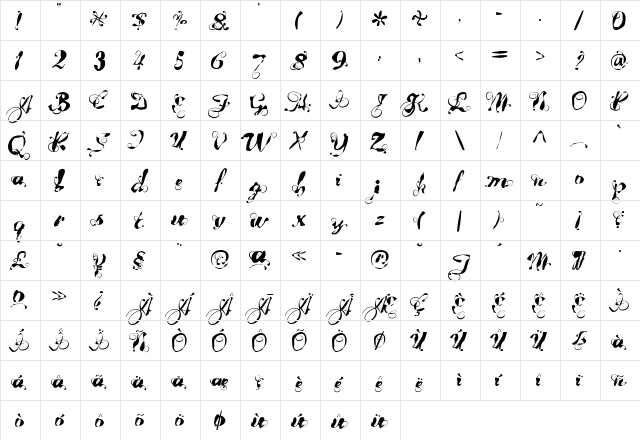
DeScripto Regular
Design Context for DeScripto Typeface
DeScripto brings a calligraphic fluidity to the page — its connecting strokes and expressive curves give it an unmistakably human quality.
Font Pairing: Combine DeScripto with a simple geometric sans for maximum contrast — the tension between flowing curves and clean structure is a classic typographic pairing.
Pro Tip: Use DeScripto for short runs of text — names, titles, or taglines. Extended body copy in script faces tires the eye quickly.